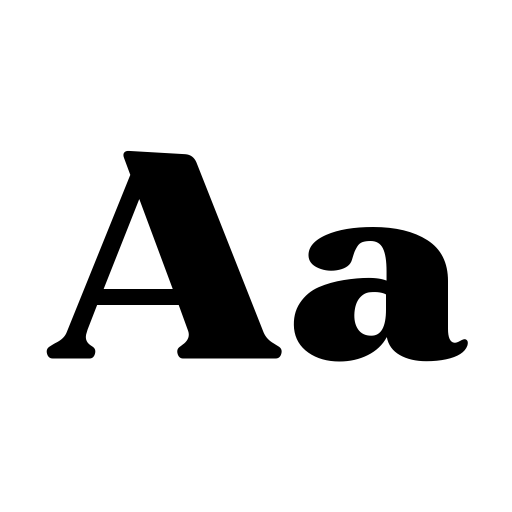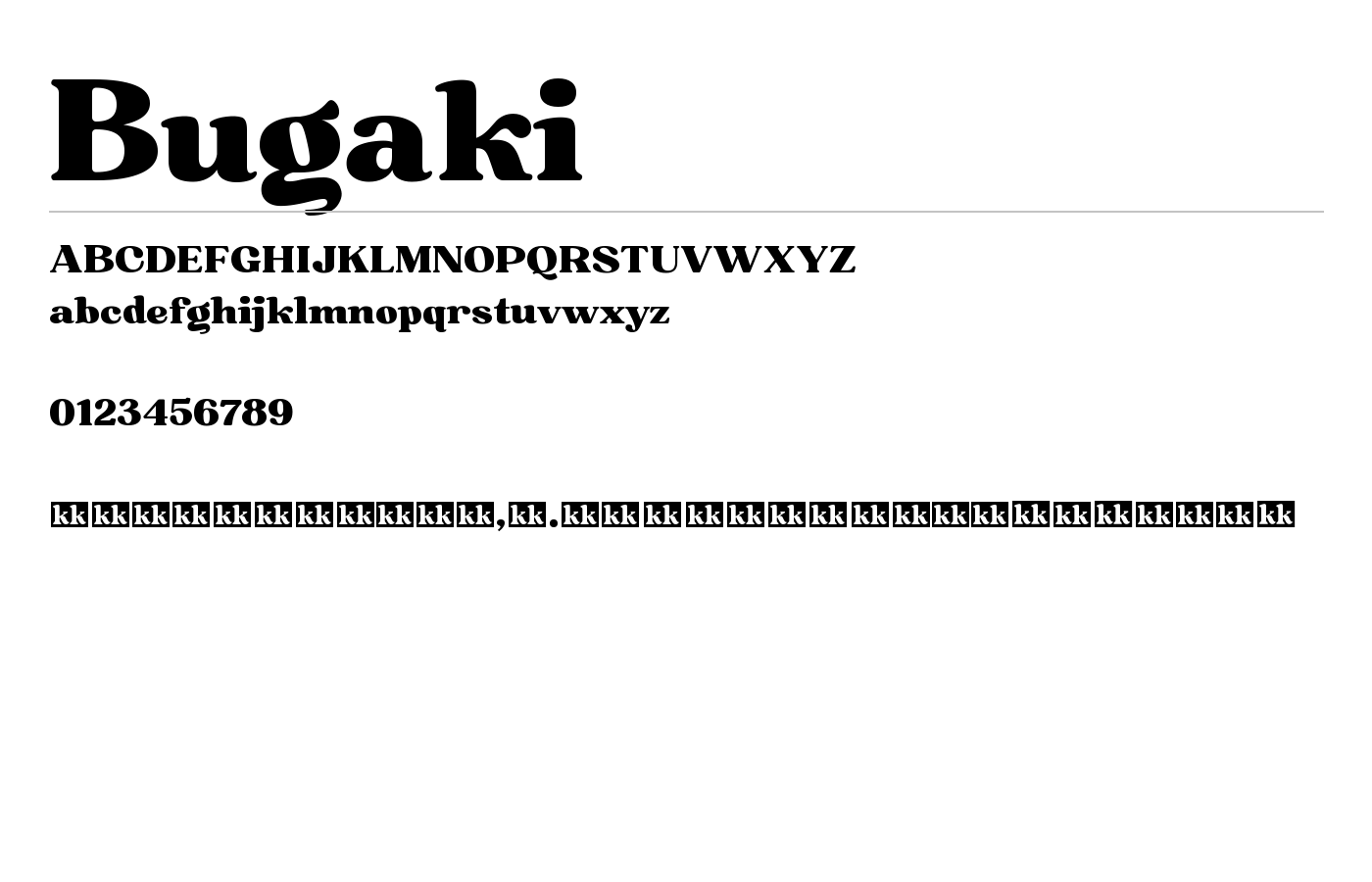
Bugaki is a bold slab serif font characterized by its strong, thick strokes and bracketed serifs that add a touch of softness to its sturdy structure. With its high contrast and somewhat playful curves, especially visible in letters like “g” and “k,” it brings a vintage yet approachable personality that works well for headlines, logos, and branding that aim to project confidence with charm. This font’s solid presence and clear legibility make it a great choice for impactful design projects seeking a blend of classic strength and friendly style.
Bugaki Font
About Bugaki Font